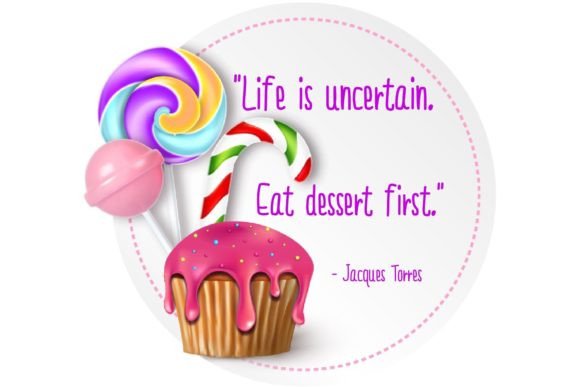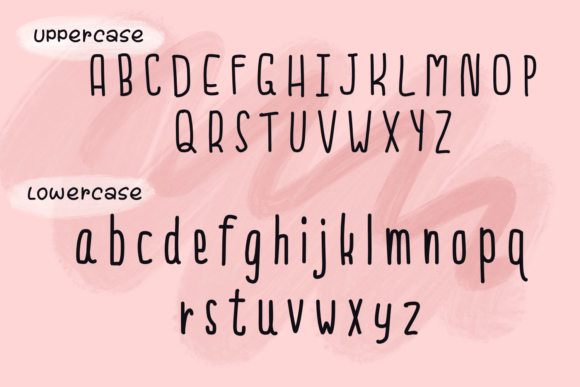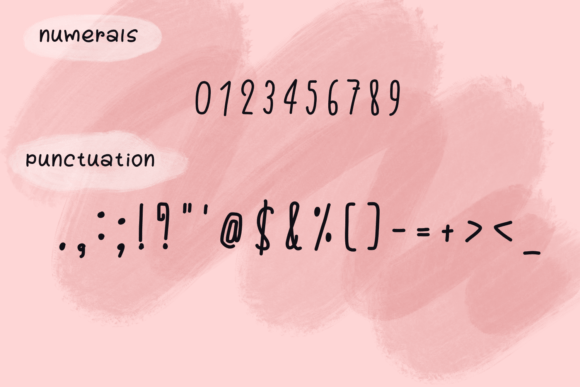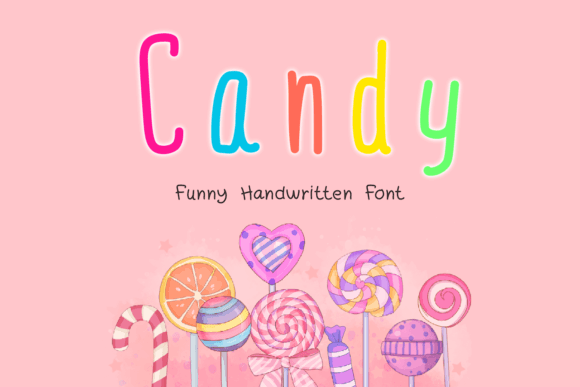
Candy Font: The Sweetest Addition to Your Design Collection
Are you tired of using the same old fonts in your designs? Look no further than Candy Font, a fun and quirky handwritten font that’s sure to add a joyful and modern touch to each of your projects. With its playful and whimsical vibe, Candy Font is perfect for designers and crafters who want to add a little sweetness to their work.
What is Candy Font?
Candy Font is a unique and eye-catching handwritten font that’s designed to bring a smile to your face. Its fun and quirky style makes it perfect for a wide range of design projects, from party invitations and social media graphics to branding and packaging. Whether you’re a professional designer or a DIY crafter, Candy Font is a great addition to your font collection.
Key Features of Candy Font
• Handwritten style: Candy Font has a beautiful, handwritten style that’s perfect for adding a personal touch to your designs.
• Fun and quirky: This font is designed to be fun and playful, making it perfect for projects that require a lighthearted and modern touch.
• Modern and fresh: Candy Font has a fresh and modern feel that’s perfect for designers and crafters who want to stay on top of the latest trends.
• Easy to read: Despite its playful style, Candy Font is easy to read and understand, making it perfect for use in a wide range of design projects.
How to Use Candy Font in Your Designs
Candy Font is a versatile font that can be used in a wide range of design projects. Here are a few ideas to get you started:
• Party invitations: Use Candy Font to create fun and playful party invitations that set the tone for a sweet celebration.
• Social media graphics: Add a touch of whimsy to your social media graphics with Candy Font, perfect for creating engaging and shareable content.
• Branding and packaging: Use Candy Font to add a modern and fresh touch to your branding and packaging, perfect for businesses that want to stand out from the crowd.
• DIY crafts: Candy Font is also perfect for DIY crafters who want to add a personal touch to their projects, from scrapbooking to card making.
Why You’ll Love Candy Font
There are many reasons why you’ll love Candy Font, including:
• Unique and eye-catching: Candy Font is a one-of-a-kind font that’s sure to grab attention and make your designs stand out.
• Versatile: Candy Font can be used in a wide range of design projects, from digital designs to print projects.
• Fun and playful: This font is designed to be fun and playful, making it perfect for designers and crafters who want to add a little joy to their work.
Tips and Tricks for Using Candy Font
Here are a few tips and tricks for getting the most out of Candy Font:
• Use it sparingly: While Candy Font is fun and playful, it can be overwhelming if used too much. Use it sparingly to add a touch of whimsy to your designs.
• Pair it with other fonts: Candy Font pairs well with other fonts, including serif and sans serif fonts. Experiment with different pairings to find the perfect combination.
• Experiment with colors: Candy Font looks great in a variety of colors, from bright and bold to pastel and soft. Experiment with different colors to find the perfect look for your design.